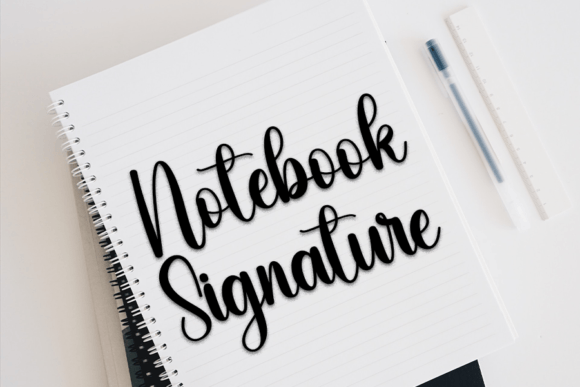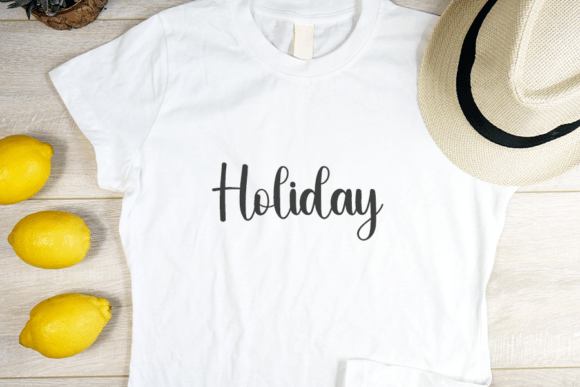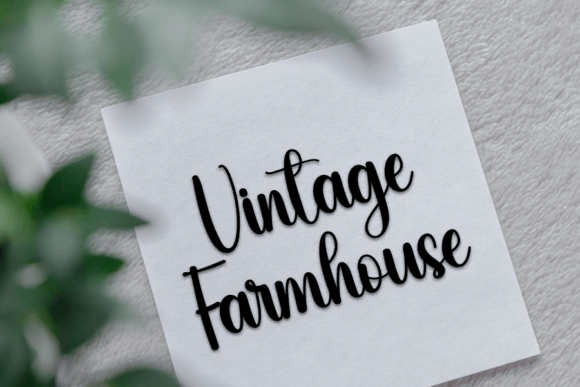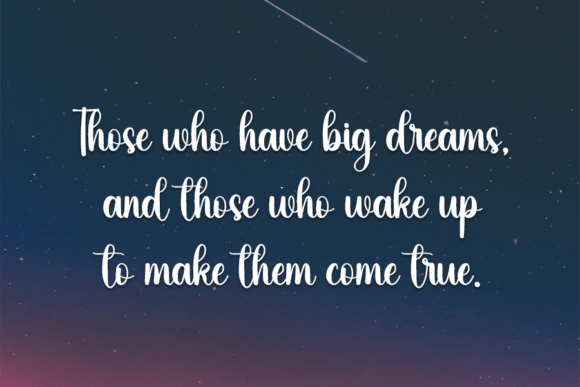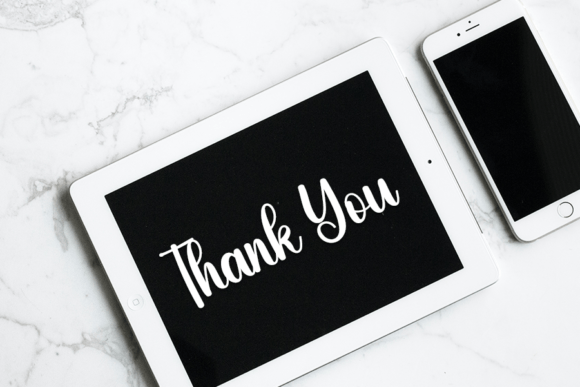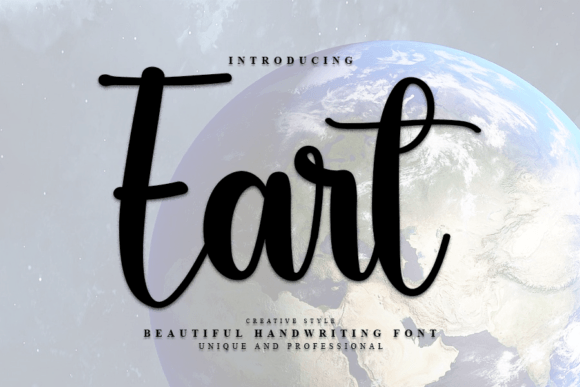
Eart Font: A Delicate Handwritten Font for Unique Designs
In the world of typography, a font can make or break a design. For designers and crafters looking for a cool and unique touch, Eart Font is a delicate handwritten font that can elevate your creations to the next level. In this article, we’ll explore the features and uses of Eart Font, and why it’s a must-have for anyone looking to add a personal touch to their designs.
What is Eart Font?
Eart Font is a carefully crafted handwritten font designed to bring a touch of elegance and whimsy to your designs. Its delicate lines and curves make it perfect for creating unique and eye-catching text. Whether you’re looking to write letters, create invitations, design food products, or craft titles, Eart Font is the perfect choice.
Features of Eart Font
Eart Font boasts a range of features that make it a standout in the world of typography. Some of its key features include:
- Delicate lines and curves: Eart Font’s intricate lines and curves give it a unique and elegant feel that’s perfect for designs that require a touch of sophistication.
- Handwritten style: Eart Font’s handwritten style gives it a personal and organic feel that’s perfect for creating unique and eye-catching text.
- Versatile: Eart Font can be used for a wide range of designs, from letters and invitations to food products and titles.
Uses of Eart Font
Eart Font is a versatile font that can be used in a variety of designs. Here are some of the ways you can use Eart Font:
- Letters and invitations: Eart Font’s elegant and whimsical style makes it perfect for writing letters and creating invitations for special occasions.
- Food products: Eart Font’s delicate lines and curves make it perfect for designing labels and packaging for food products, such as baked goods, chocolates, and specialty foods.
- Titles and headings: Eart Font’s unique style makes it perfect for creating eye-catching titles and headings for blogs, websites, and social media posts.
- Crafting and DIY projects: Eart Font’s handmade style makes it perfect for crafting and DIY projects, such as scrapbooking, card making, and journaling.
Why Choose Eart Font?
With so many fonts available, why choose Eart Font? Here are just a few reasons why Eart Font stands out:
- Unique style: Eart Font’s delicate lines and curves give it a unique and elegant feel that’s hard to find in other fonts.
- Easy to read: Despite its intricate lines and curves, Eart Font is easy to read, making it perfect for designs that require a lot of text.
- Versatile: Eart Font can be used in a wide range of designs, from formal to informal, making it a great addition to any designer’s toolkit.
Tips for Using Eart Font
Here are a few tips for getting the most out of Eart Font:
- Use it sparingly: Eart Font’s unique style can be overwhelming if used too much. Use it sparingly to add a touch of elegance and whimsy to your designs.
- Pair it with other fonts: Eart Font pairs well with other fonts, such as sans-serif fonts and script fonts. Experiment with different pairings to find the one that works best for your design.
- Experiment with colors and textures: Eart Font looks great in a variety of colors and textures. Experiment with different colors and textures to find the one that works best for your design.
Eart Font is a delicate handwritten font that’s perfect for designers and crafters looking for a cool and unique touch. Its intricate lines and curves give it a unique and elegant feel that’s perfect for creating eye-catching text. With its versatility and ease of use, Eart Font is a must-have for anyone looking to add a personal touch to their designs.
Whether you’re looking to write letters, create invitations, design food products, or craft titles, Eart Font is the perfect choice. So why not give it a try and see how it can elevate your designs to the next level?